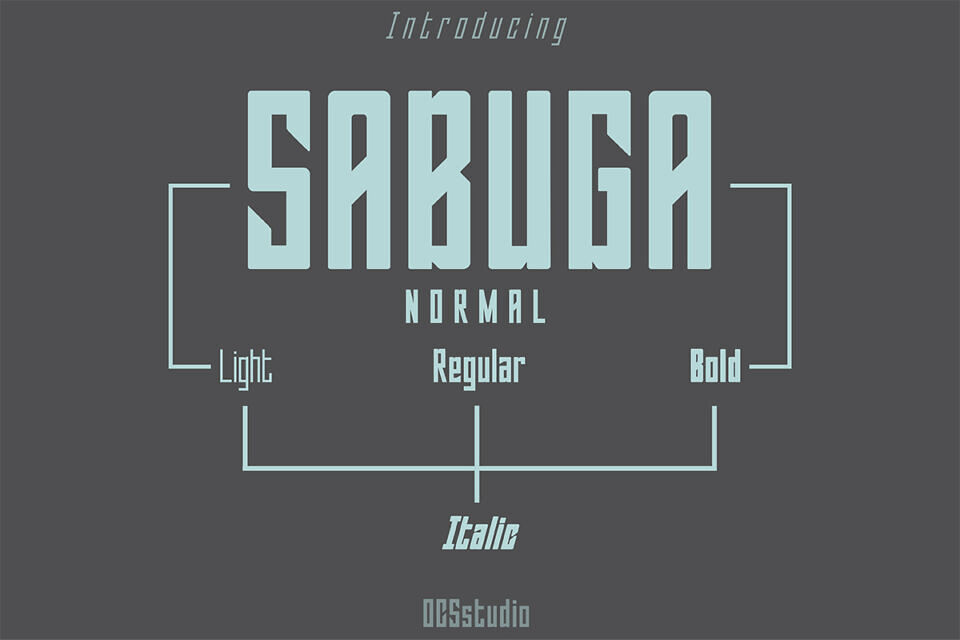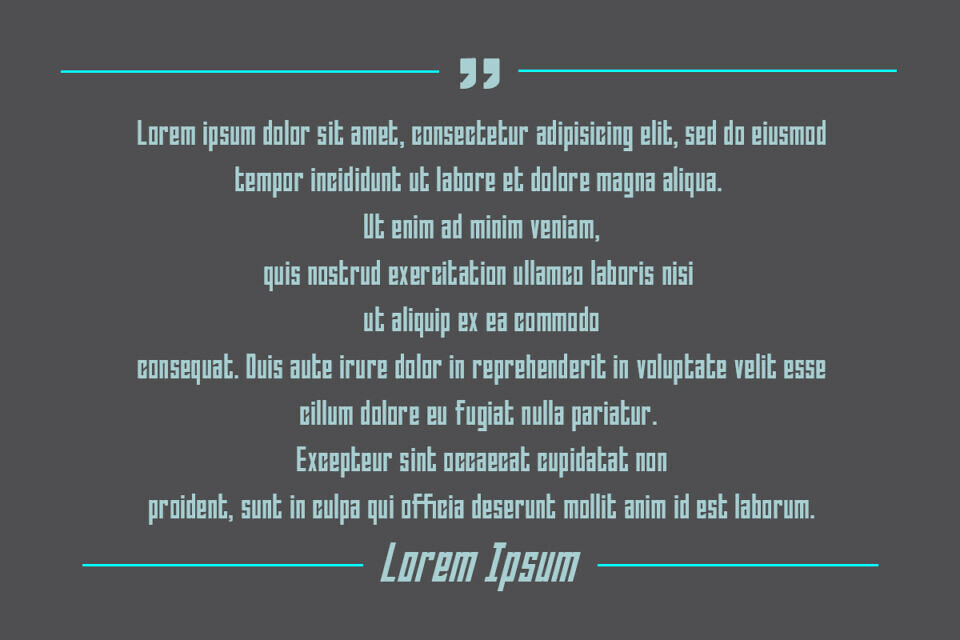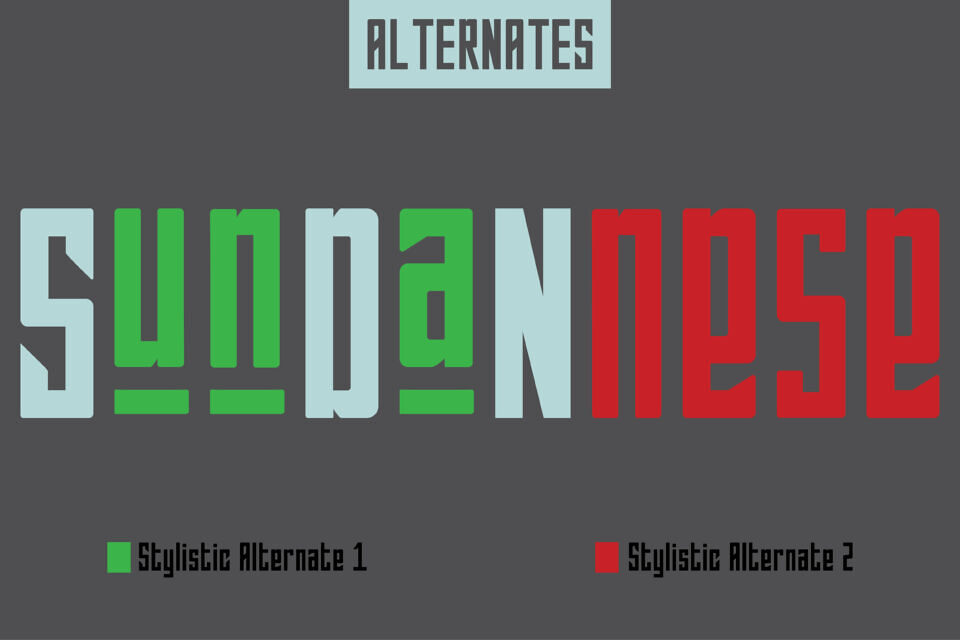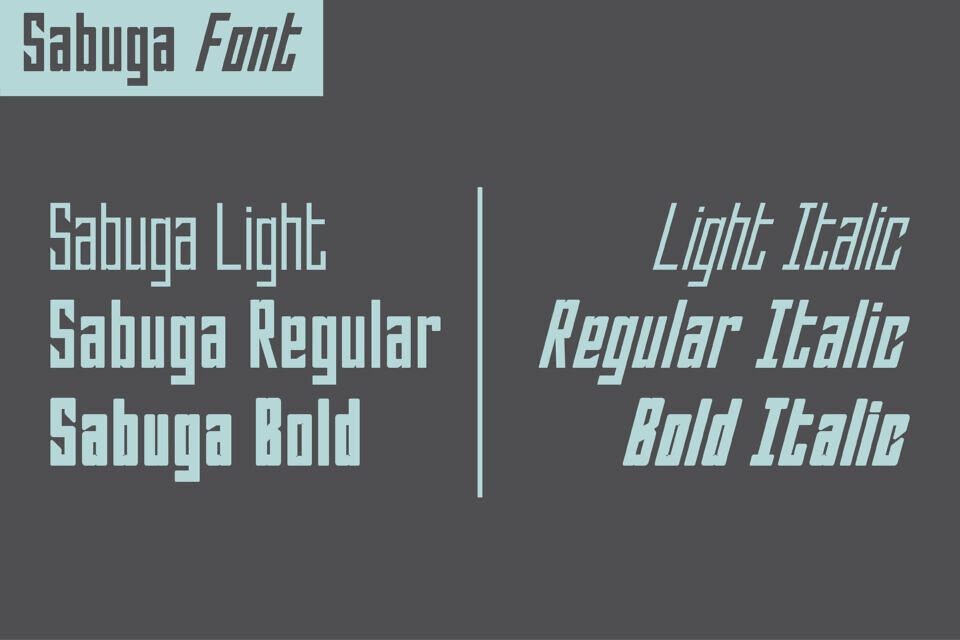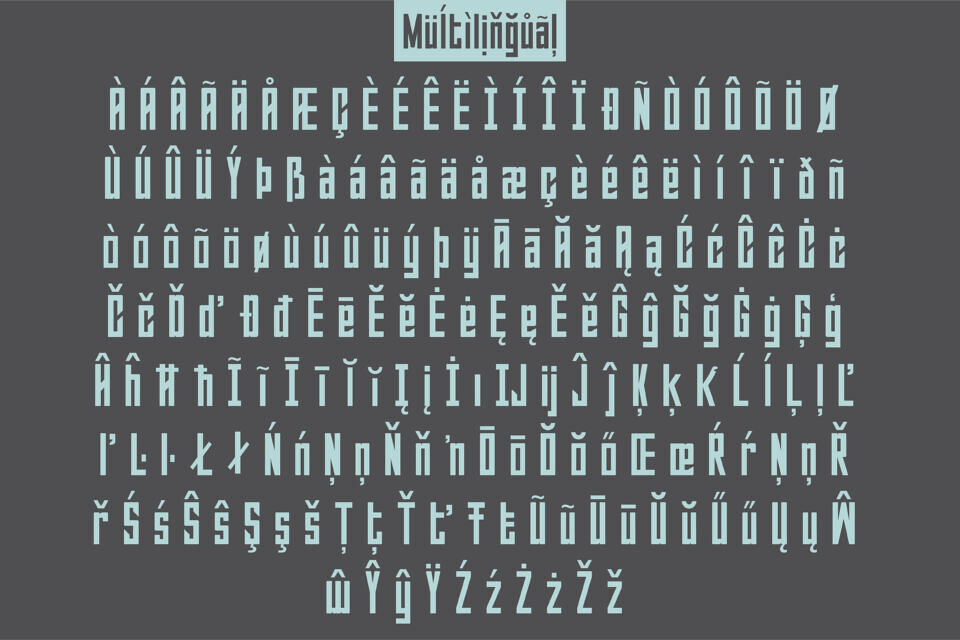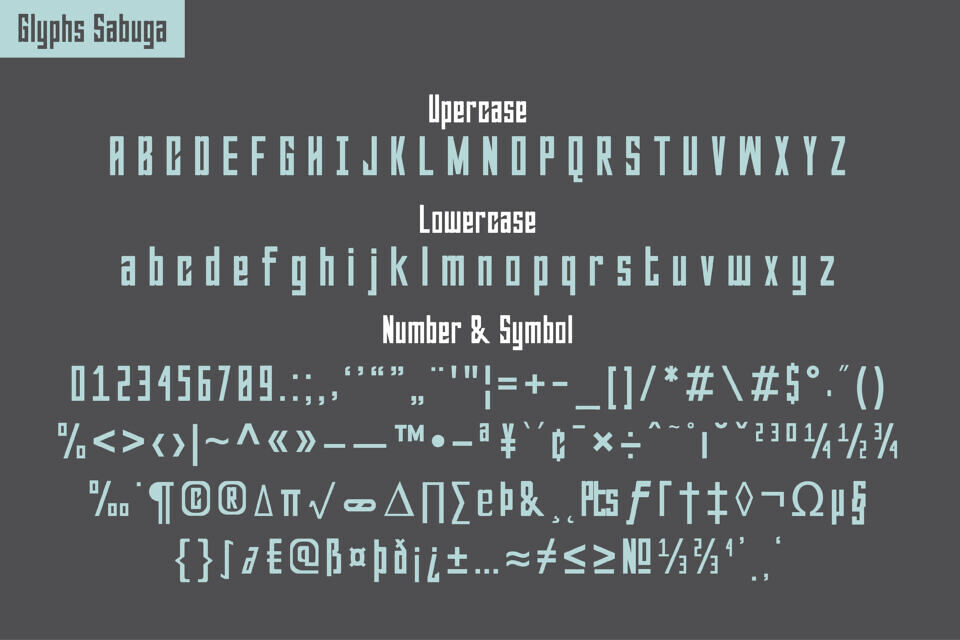
Sabuga is a modern sans serif font that is carefully crafted and clean. The Sabuga font is perfect for designs template, events, invitations, escort cards, table numbers, quotes, displays, logos, blog slides, special addresses, stamps, packaging, greeting cards, websites, and more.